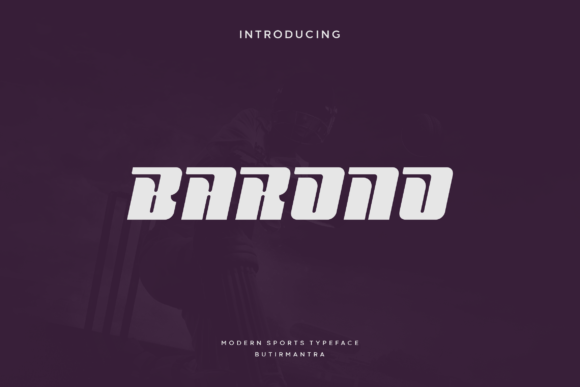
Buckle up and immerse yourself in the exhilarating world of Barono Font, the ultimate font for injecting high-octane energy into your gaming videos. Experience the thrill of crafting captivating content that leaves your audience breathless from the start. With its sleek sans serif design and wide italics, Barono Font embodies the essence of speed, power, and adrenaline.
Unleash your creativity and elevate your gaming videos to new heights. Transform your gameplay footage into cinematic masterpieces with Barono Font's dynamic slant, modern letter cuts, and all-caps style. Make your headlines roar, your logos scream, and your branding exude an aura of athletic prowess.
Step into the arena of professional design and watch your projects soar to success. Barono Font is your secret weapon for creating sports magazines that ignite passion, automotive designs that ignite hearts, and monograms that leave a lasting impression. Its slanted corner cuts create an effect of raw power and unstoppable speed—a perfect match for any sports-themed project.
Join the ranks of design champions and grab Barono Font today. Let your creativity take the wheel, push the limits, and leave an indelible mark on the world of visual storytelling. It's time to make your designs stand out like never before. Barono Font: The Fuel for Your Creative Engine.